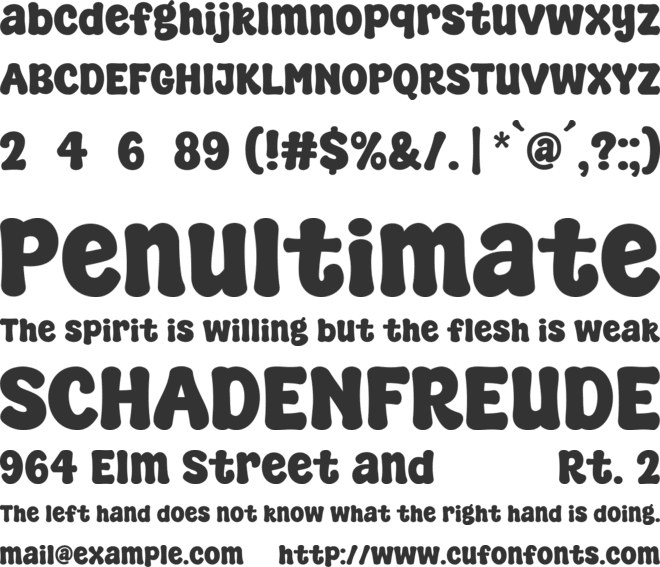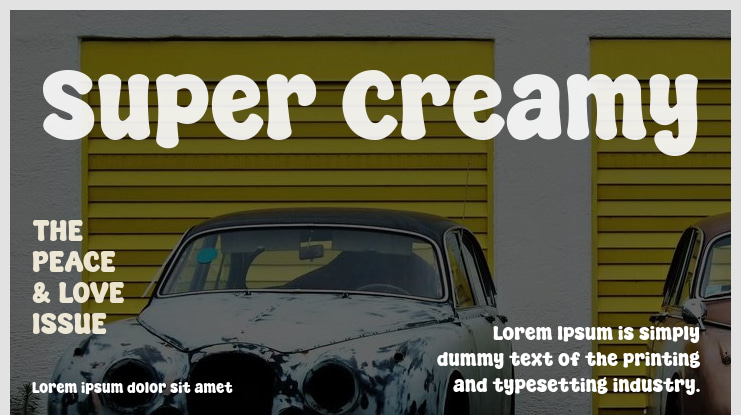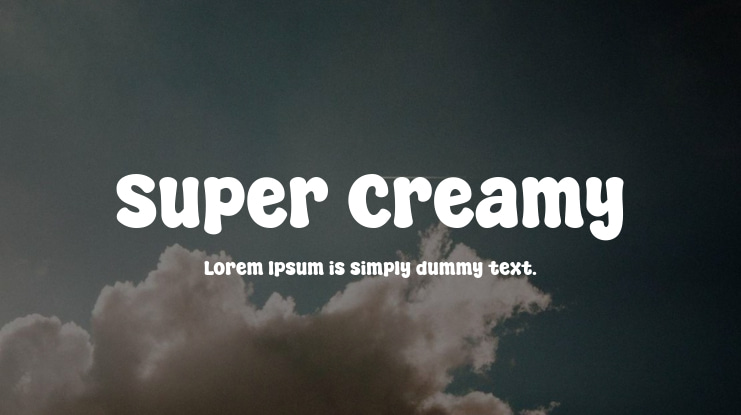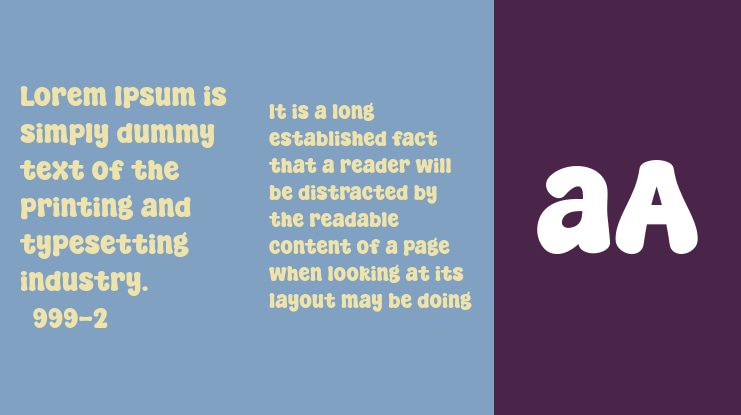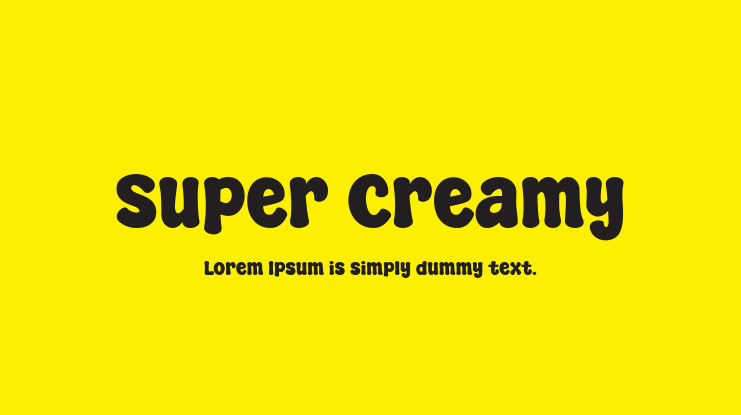
Super Creamy Font
This particular font is intended for personal use only. If you wish to use it for commercial purposes, you must obtain a commercial license. The commercial license can be purchased at the following link: [https://allsuperfont.com/product/super-creamy/Super Creamy](https://allsuperfont.com/product/super-creamy/Super). Dive into Delicious Design with Super Creamy: Super Creamy is a charming font that features whimsical round letters with a hand-drawn flair, resulting in a design that is both striking and elegant.